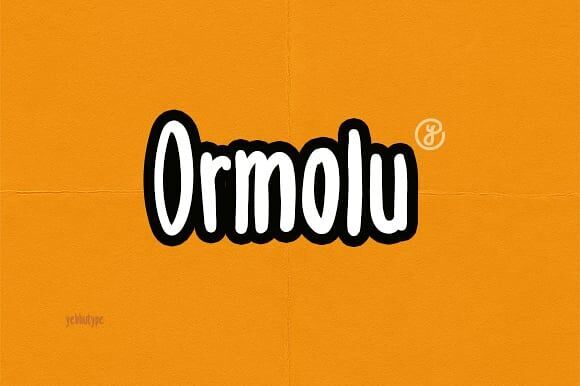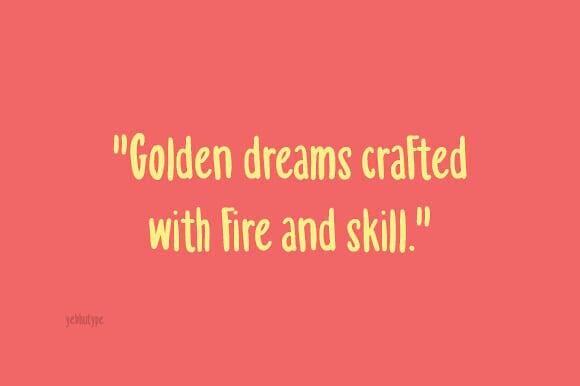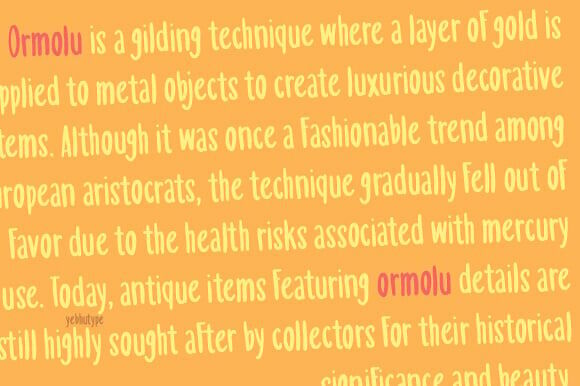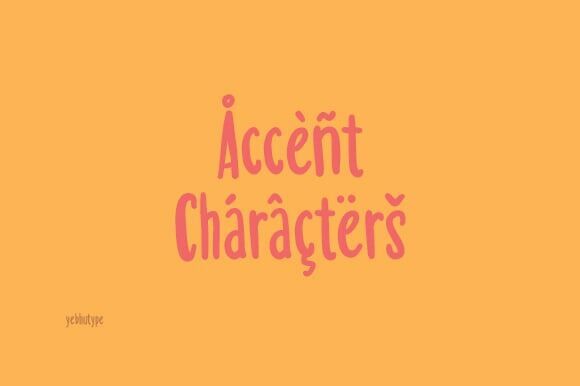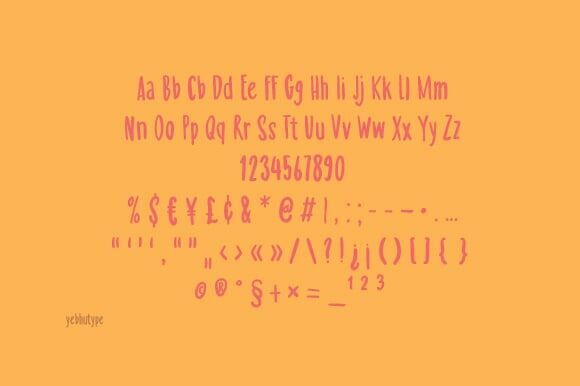
Introducing Ormolu Font , a delightful new typeface inspired by the carefree strokes of a marker pen and the whimsical charm of handwritten notes. Designed for those who value fun, creativity, and boundless energy, Ormolu Font is more than just a font—it’s an invitation to play, laugh, and express yourself in the most vibrant way possible. With its playful curves, quirky details, and lively personality, this font breathes life into any project it touches.
Ormolu Font captures the essence of spontaneity and joy. Its informal, hand-drawn aesthetic feels like a warm hug or a doodle-filled notebook passed between friends. Whether you’re crafting designs for kids, creating posters that pop with personality, or adding flair to branding projects, Ormolu Font brings a sense of humor and warmth that resonates with audiences of all ages. It’s perfect for moments when you want your message to feel friendly, approachable, and full of heart.